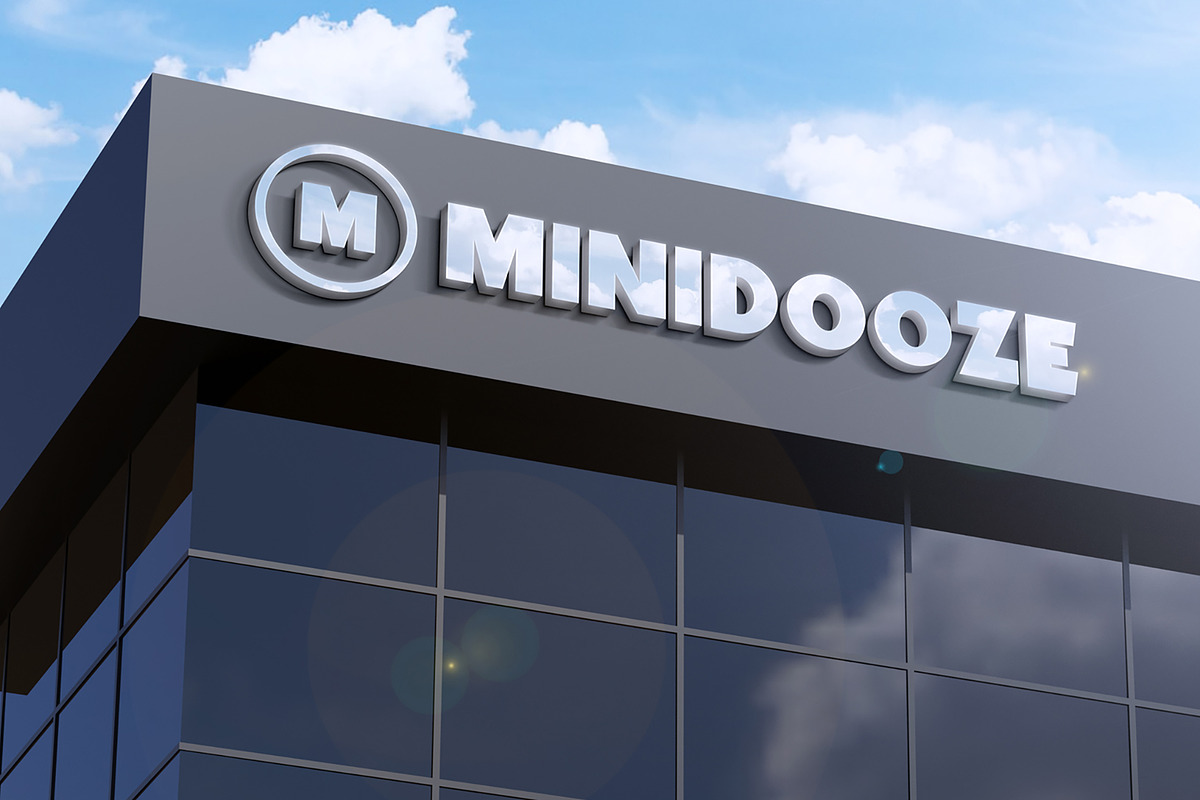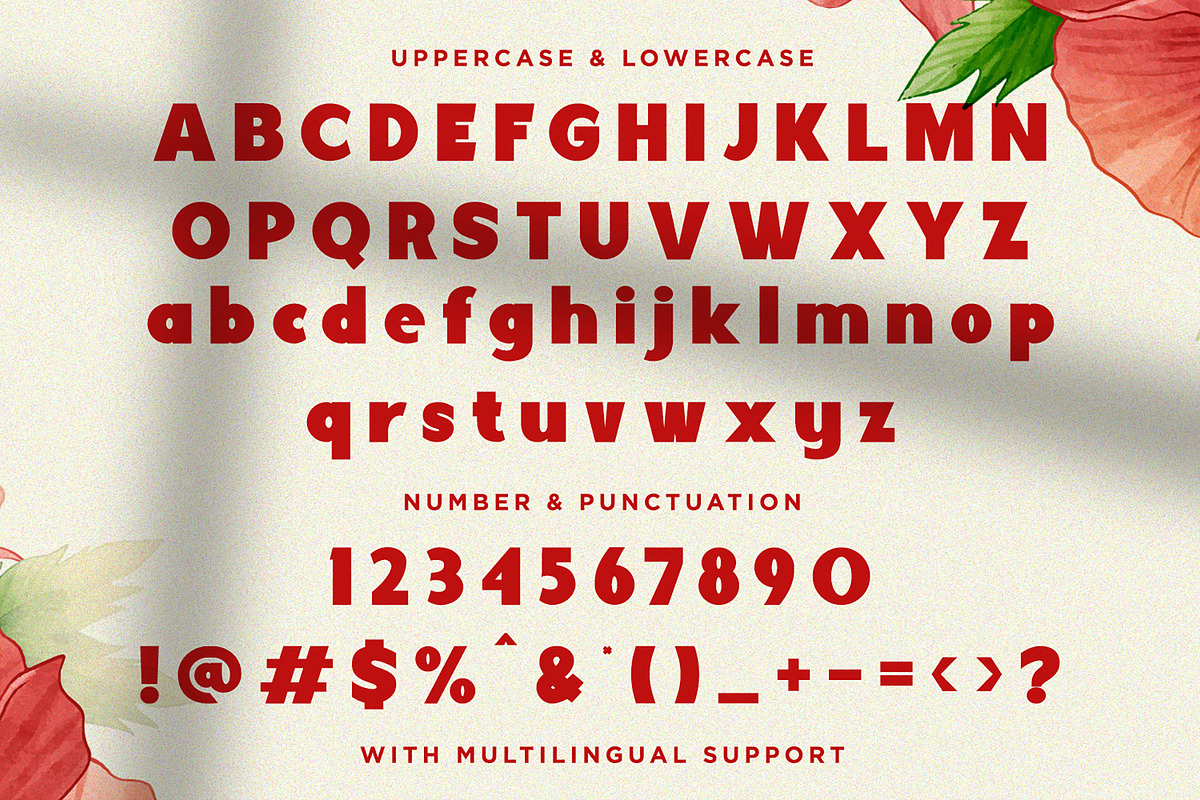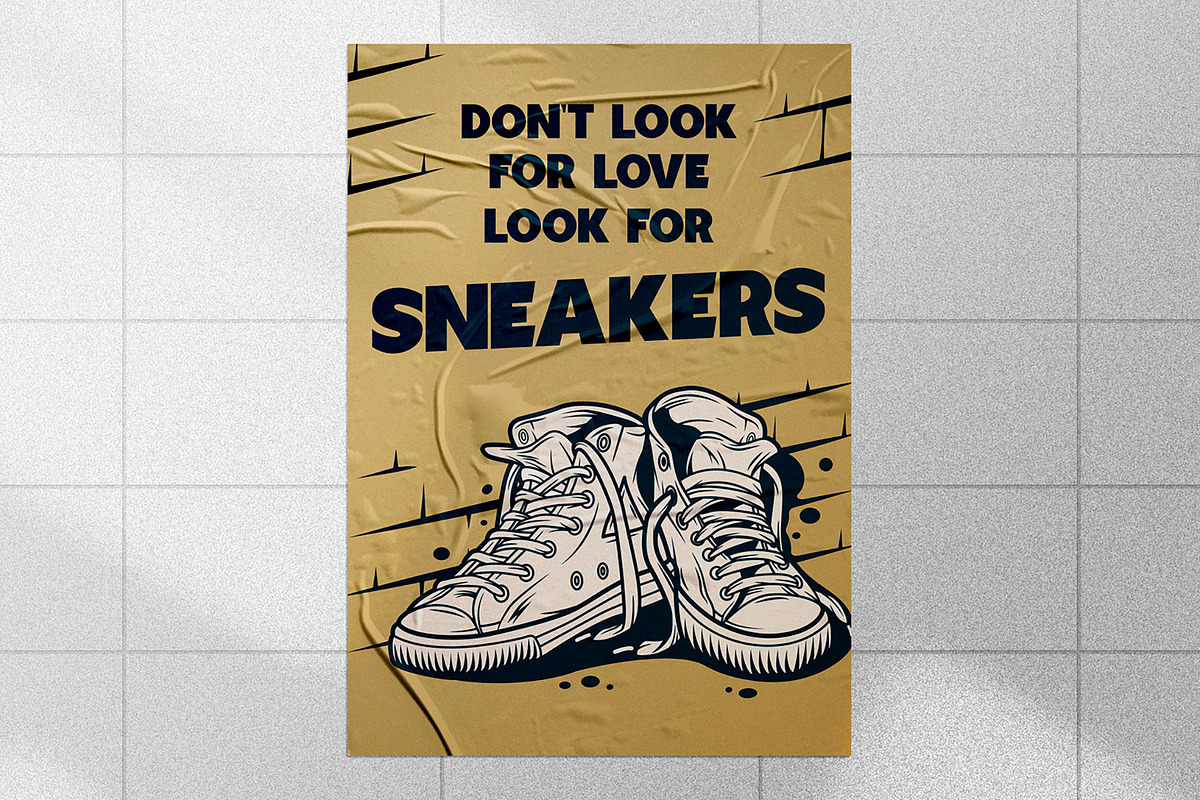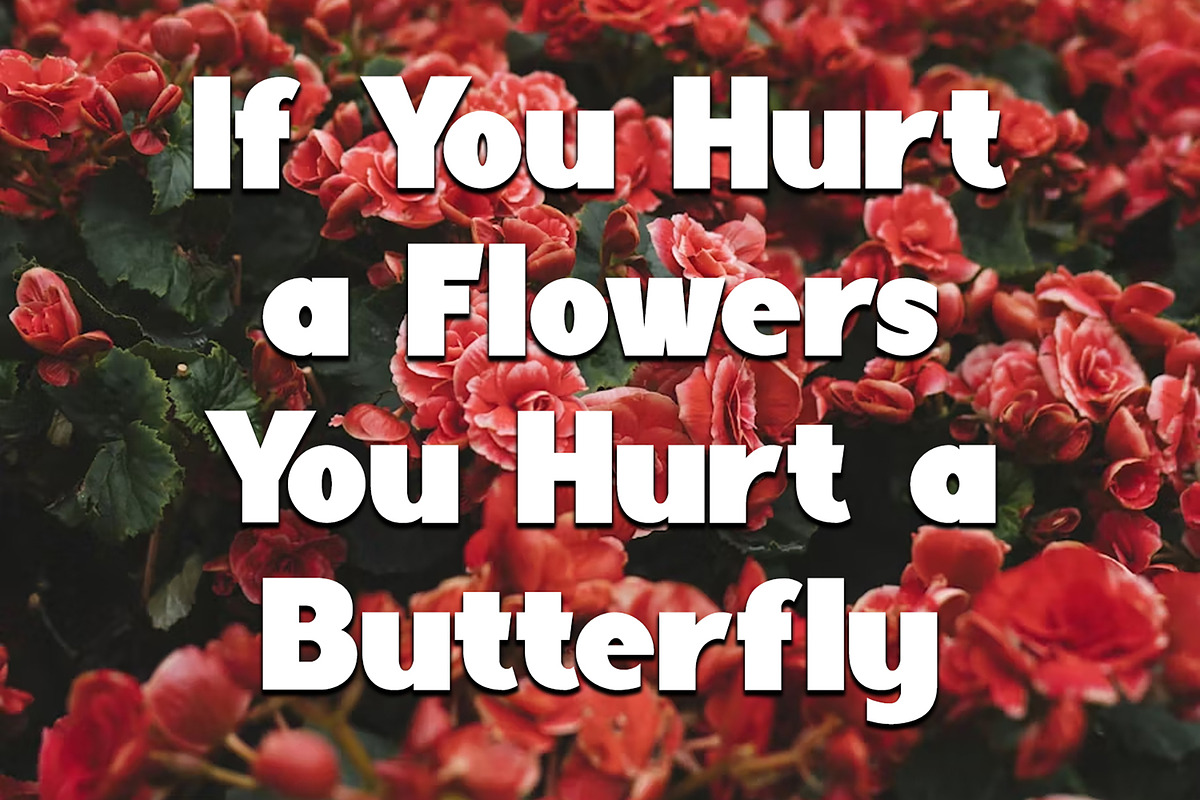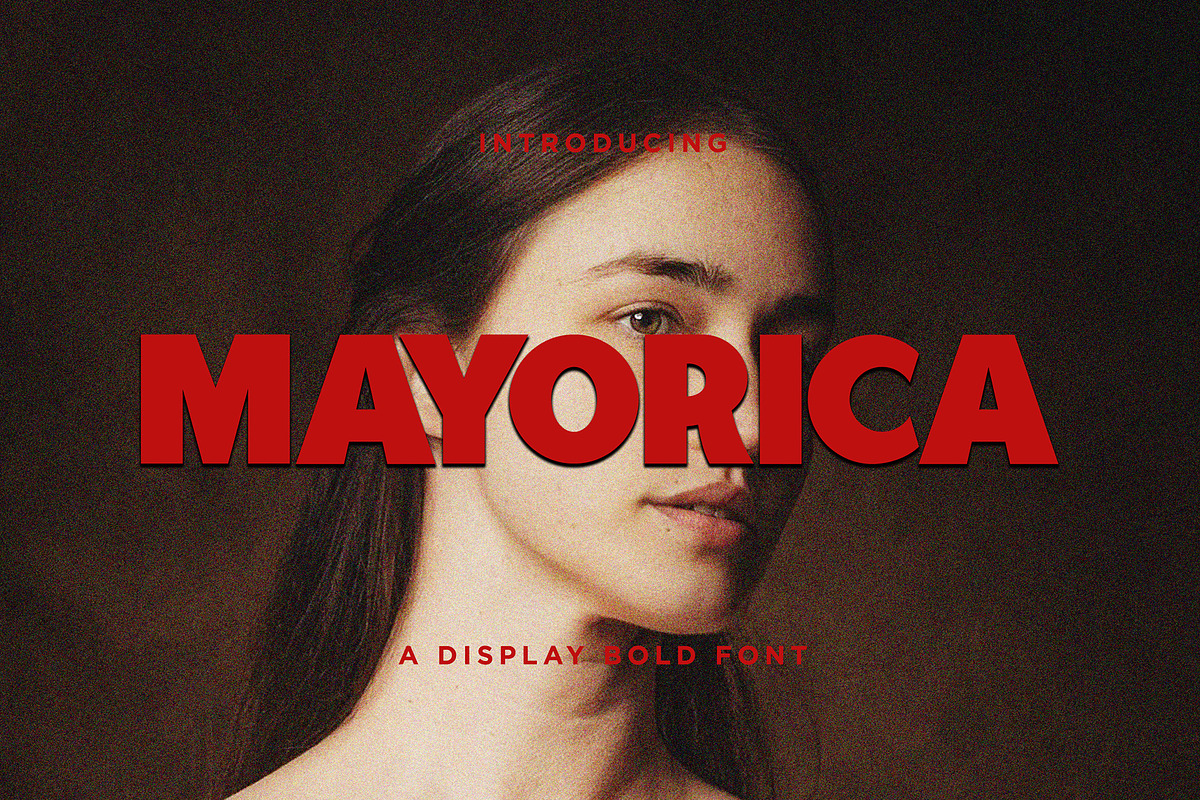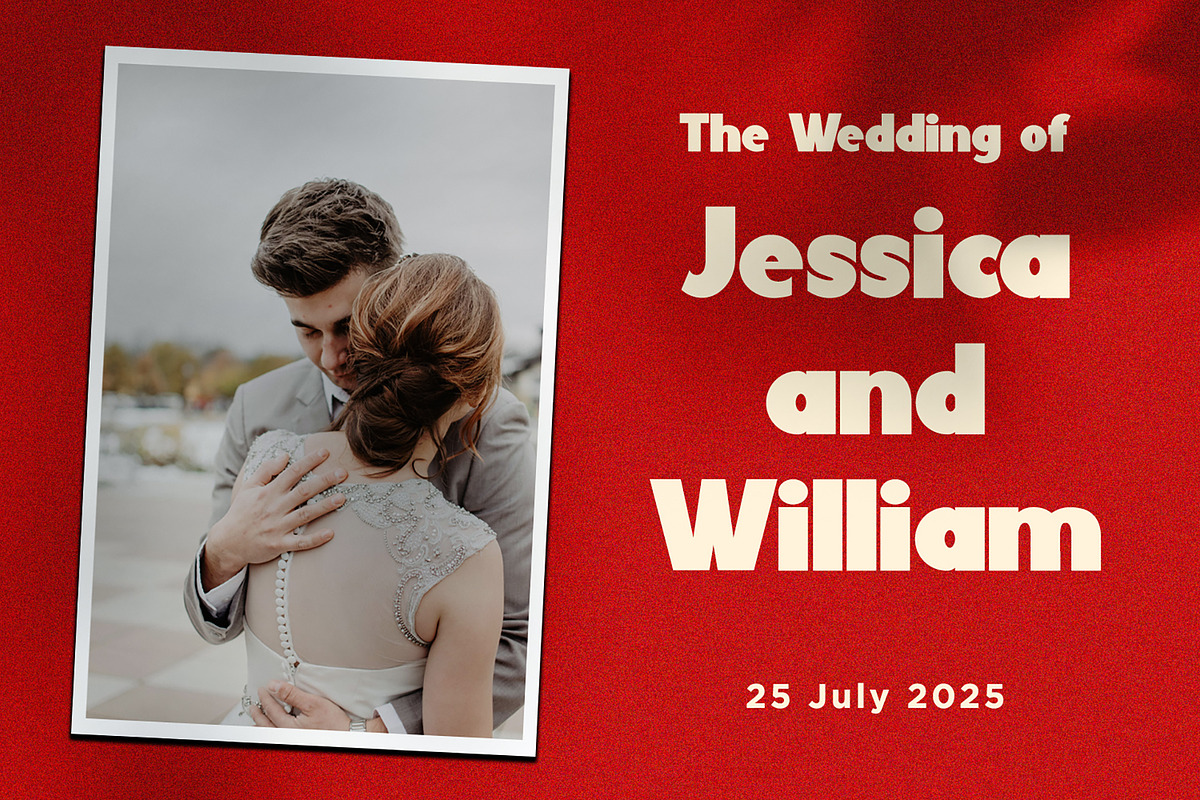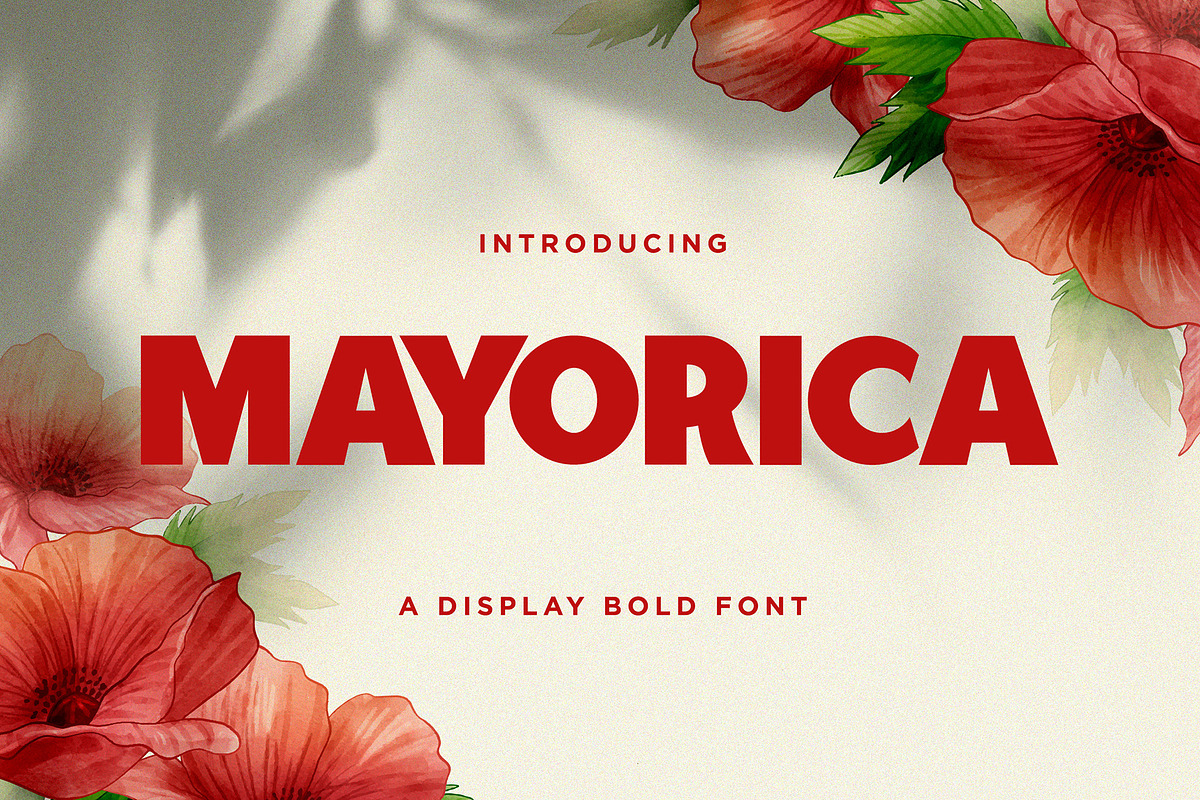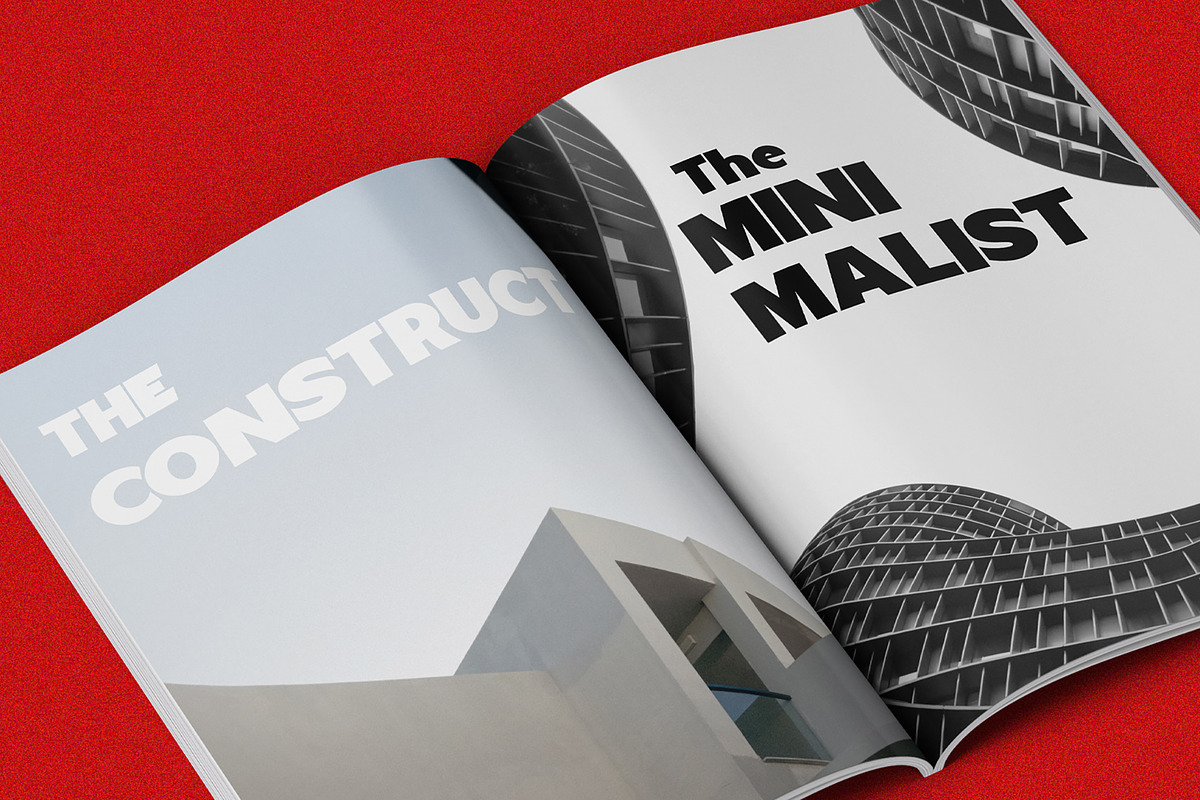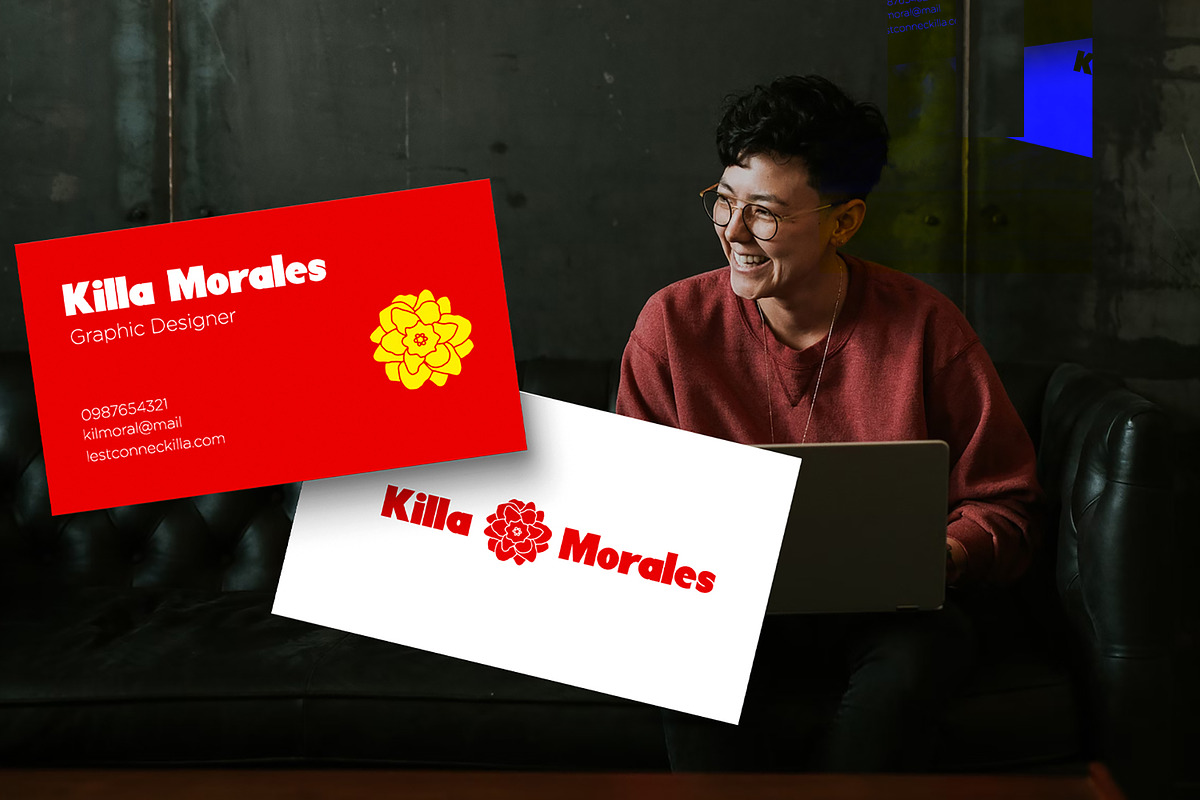
Mayorica - Minimalist Bold Display
Mayorica - Minimalist Bold Display Font
Simple, Modern, Minimalist & Bold - Display Font
Perfect for Logotype, brand logo, apparel design, clothing, fashion, creative industry, signature, headline/title on poster, brochure, packaging, wedding invitation, quotes, magazine, social media etc.